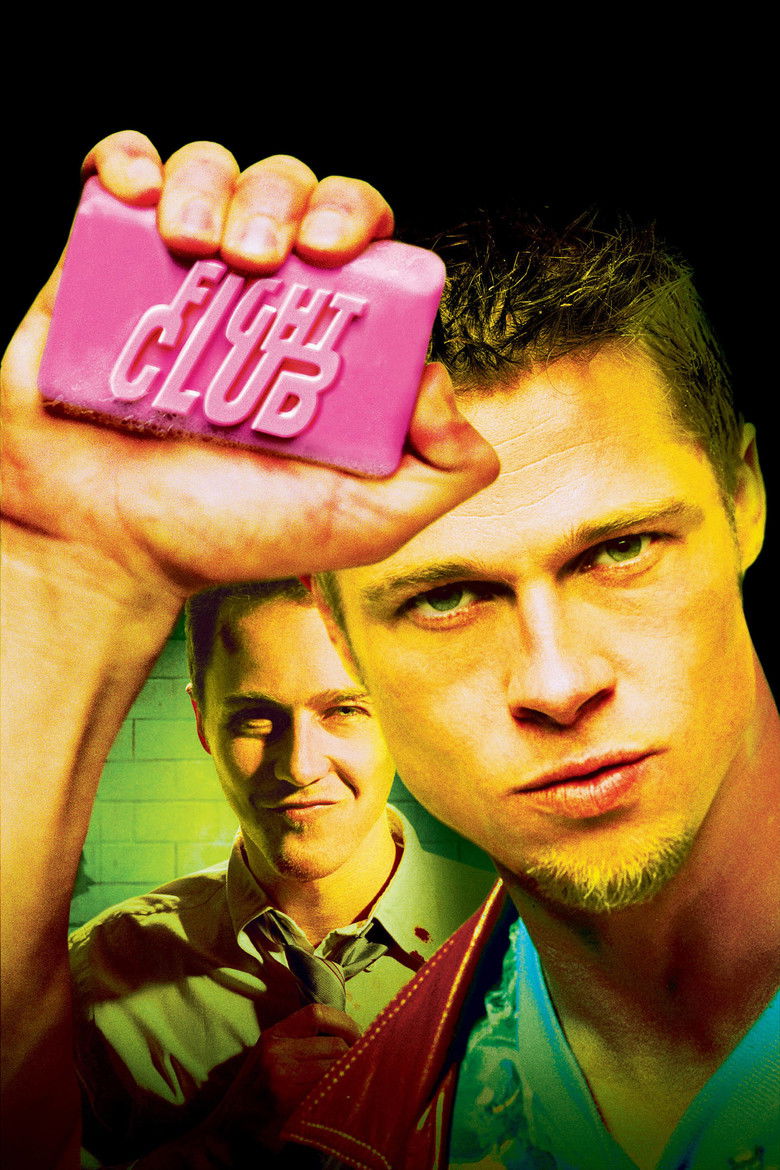
About the Fight Club font
Fight Club leans on a plain, gritty condensed sans. Oswald recreates its raw, understated tension for free.
What font is used in the Fight Club logo?+
The original Fight Club logo uses custom lettering. This generator recreates the look with Oswald — a free, open-license font you can style and download.